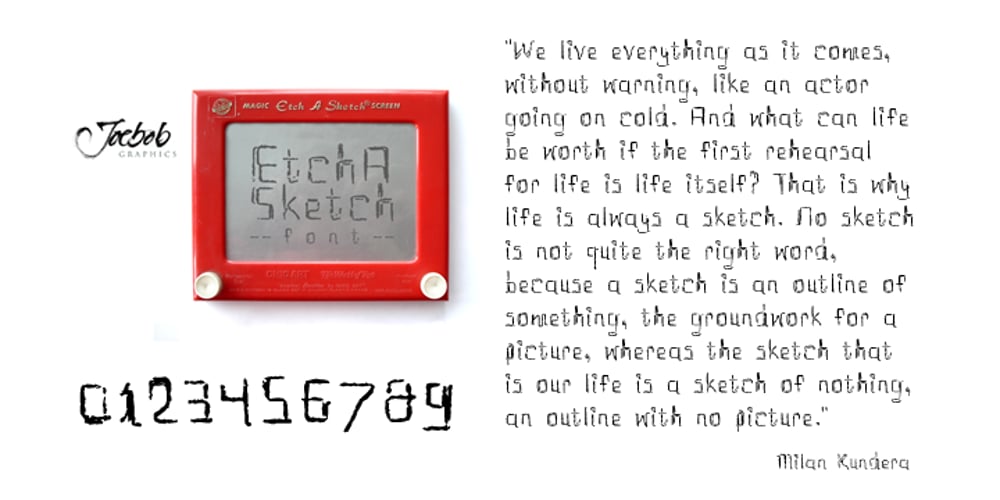
Etch A Sketch Font Family was designed by Jeroen “Joebob” van der Ham and published by JOEBOB graphics. Etch A Sketch contains 1 styles and family package options. I finally managed to create a font from the characters I wrote on my Etch A Sketch board. A bit grungy, but definitely something else.